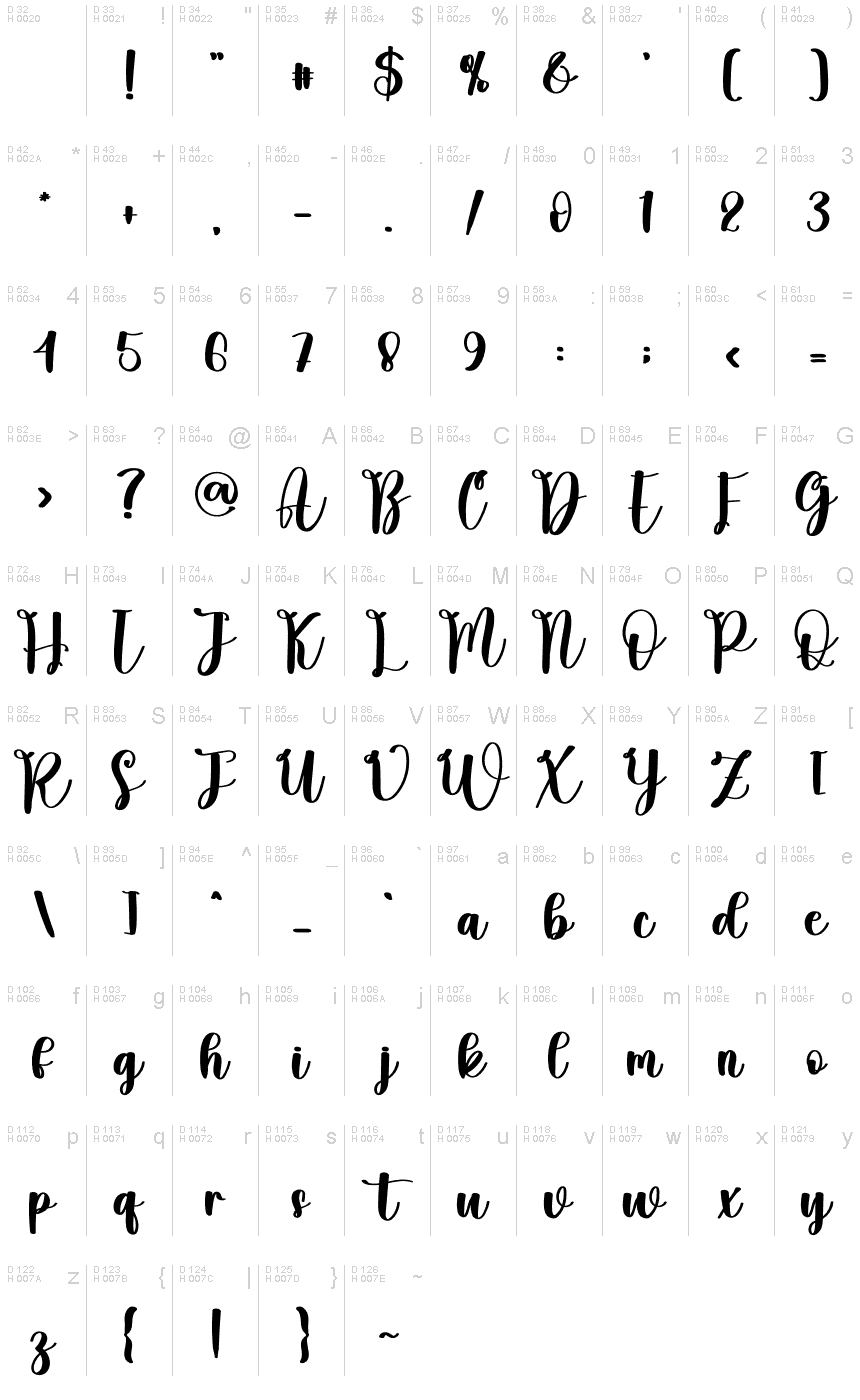
Glathly
Glathly, a captivating calligraphy font designed by FreshtypeINK, adds an elegant touch to any project. Its semi-bold weight strikes the perfect balance between sophistication and readability, making it suitable for a wide range of creative endeavors. Enhance your wedding invitations with Glathly's graceful strokes or give your branding materials a refined look. Craft striking headlines for fashion magazines or create stunning logos that exude luxury and charm. Glathly is the ideal choice for projects that demand a touch of class and artistic flair, leaving a lasting impression on your audience.